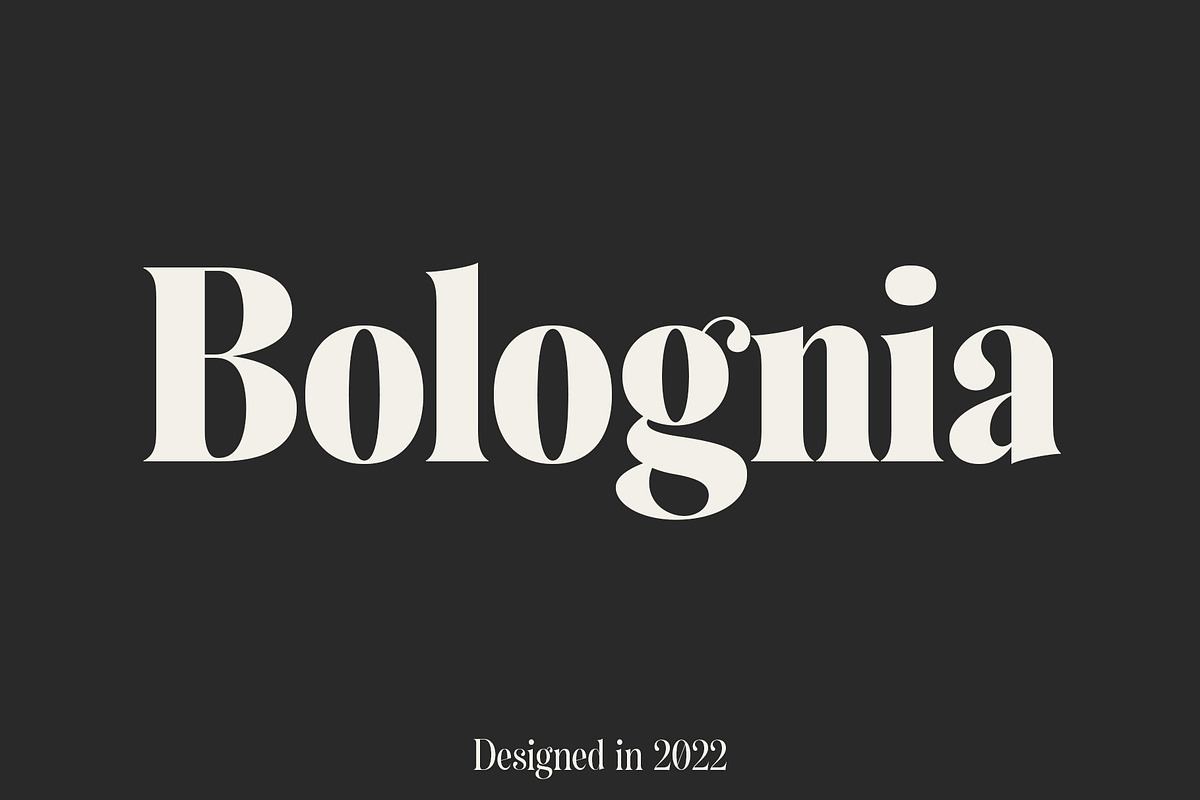
Bolognia – Classic Serif Font Free Download is a timeless typeface inspired by traditional editorial elegance and refined typographic heritage. With its balanced serifs, subtle contrast, and clean structure, Bolognia is perfect for books, branding, magazine layouts, packaging, and elegant website headers.
Its classic charm adds sophistication to any design while maintaining clarity and versatility. Whether you're crafting a luxury label, designing formal invitations, or working on a heritage-inspired identity, Bolognia delivers timeless beauty with professional polish.
Designers love Bolognia for its balance of tradition and modern readability—ideal for both digital and print applications. Want to elevate your project with classic elegance? Download Bolognia – Classic Serif Font Free Download and bring refined character to your typography.